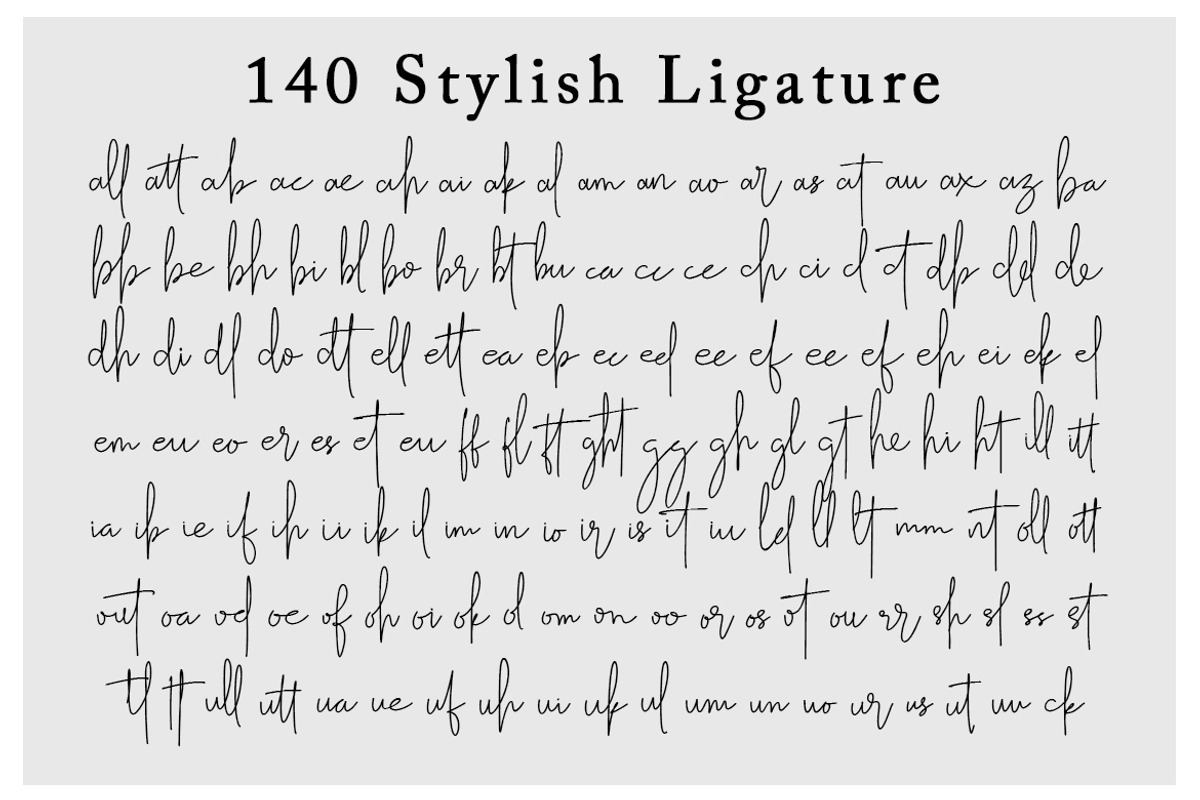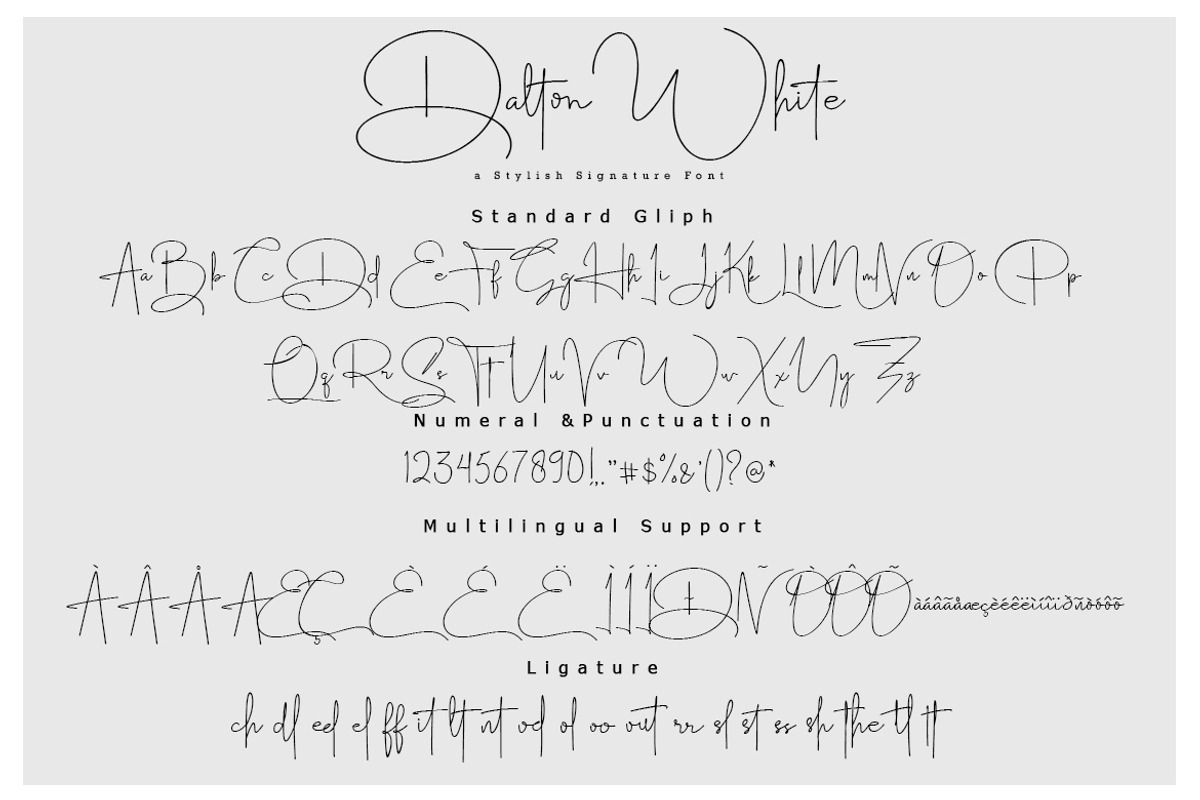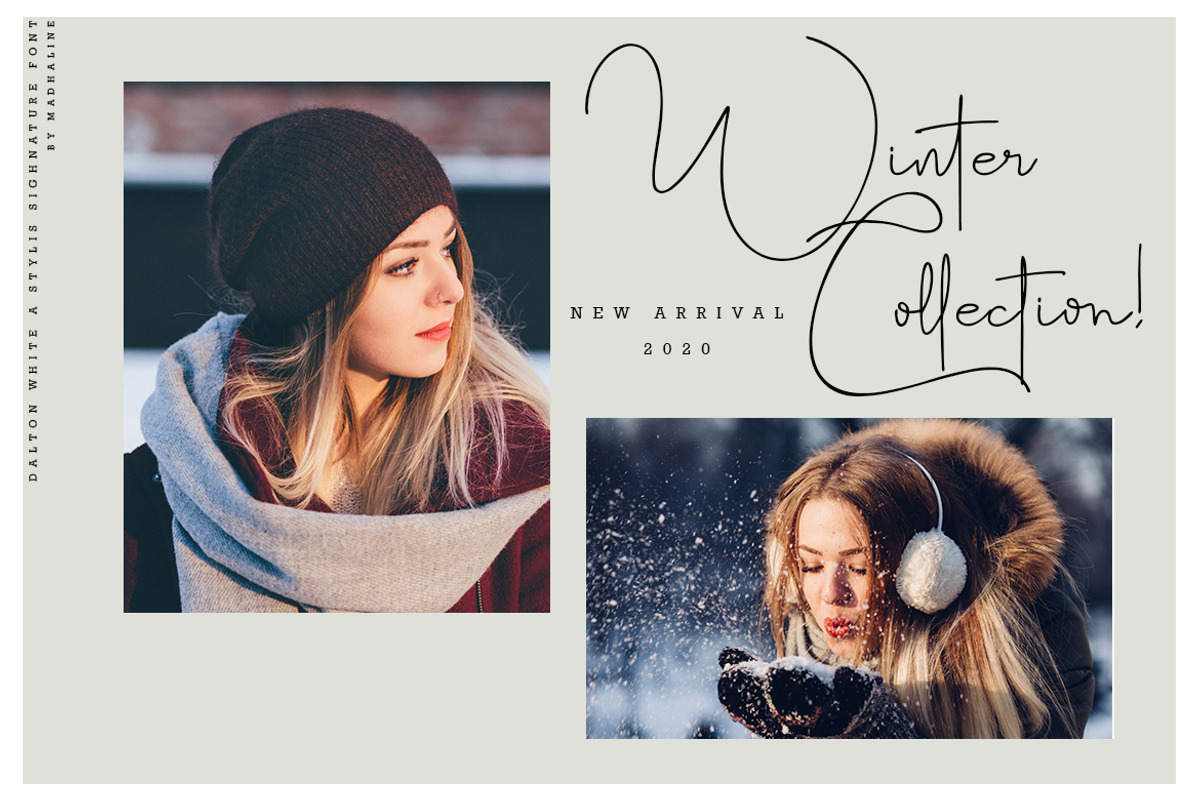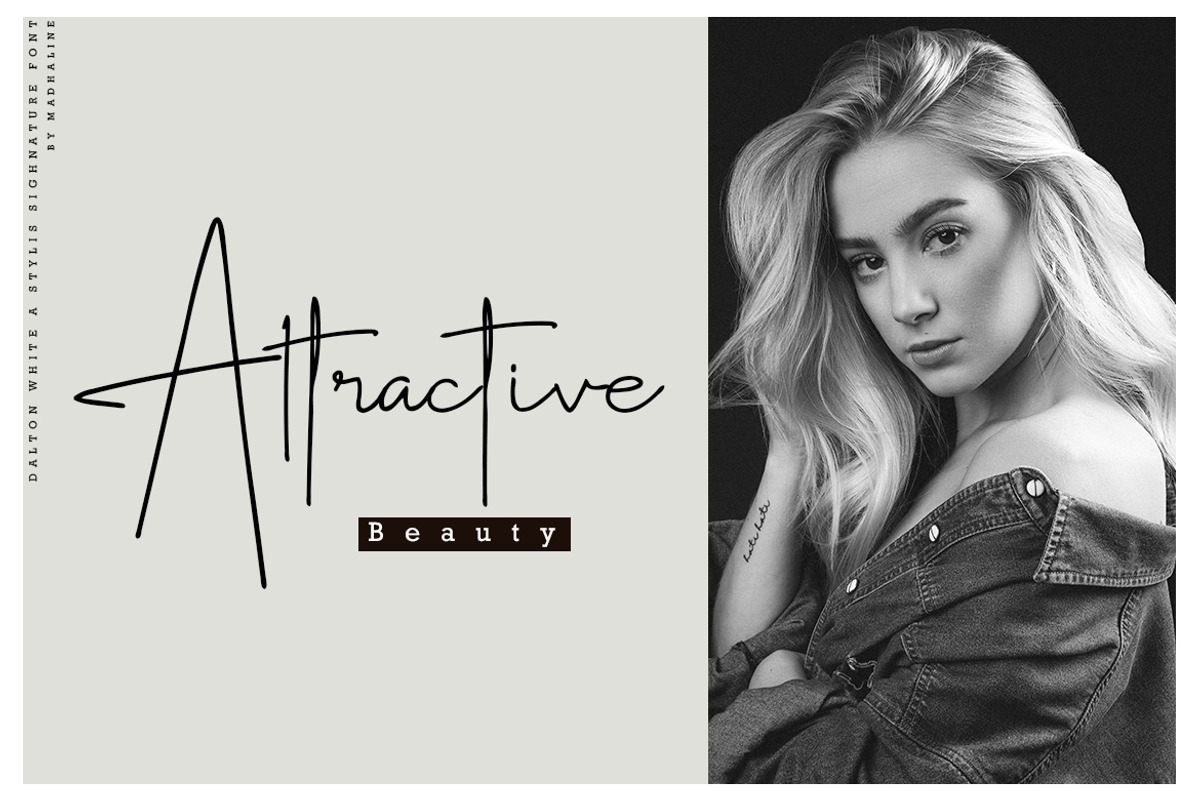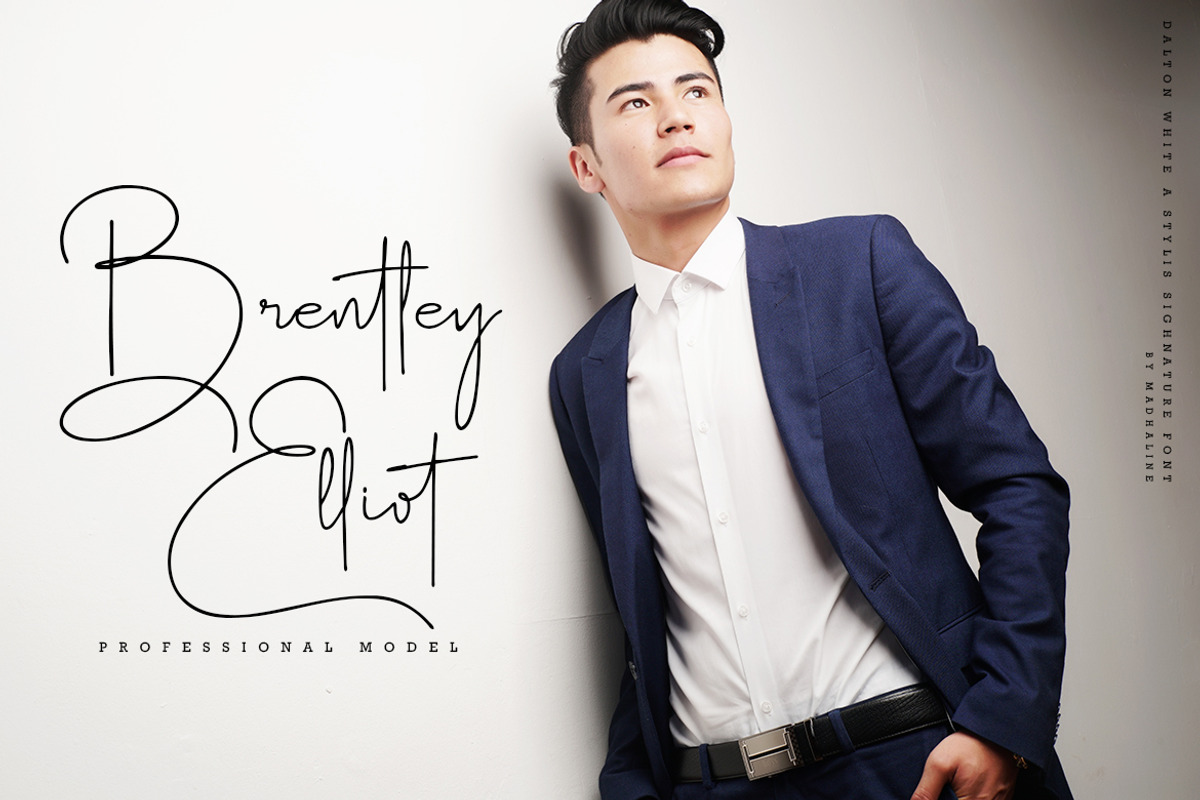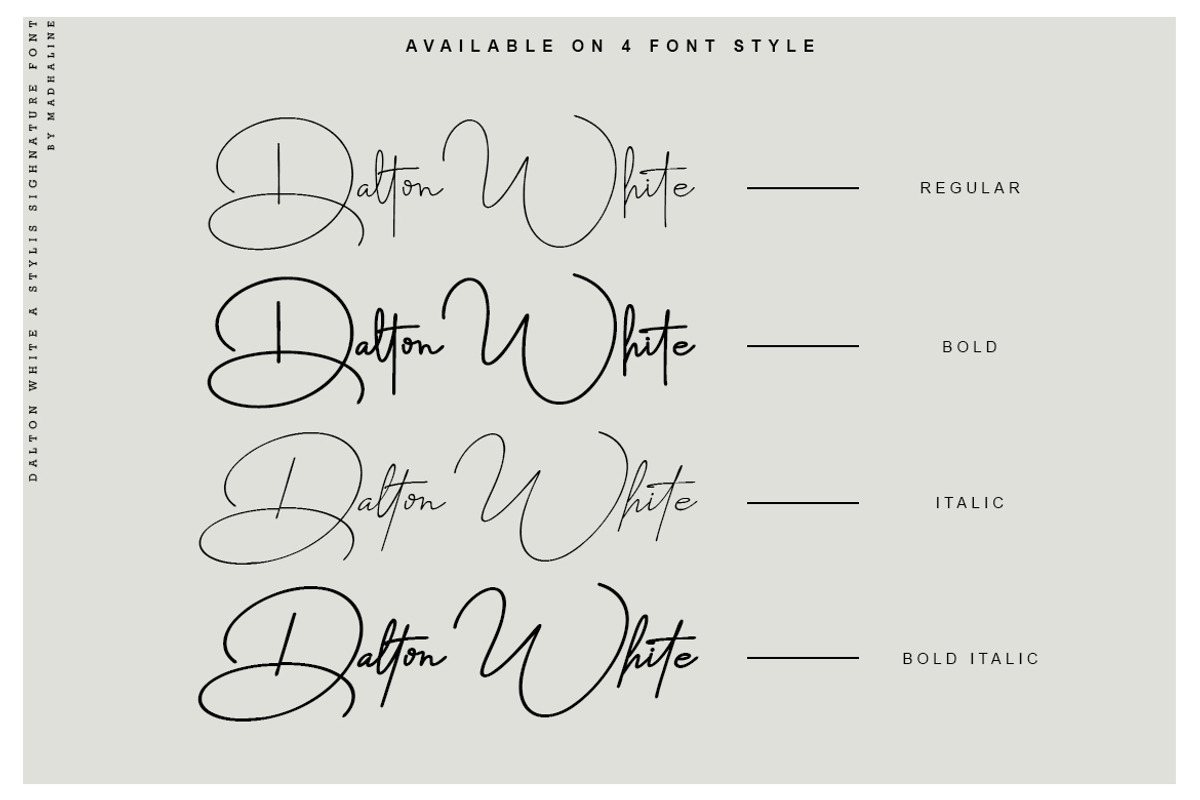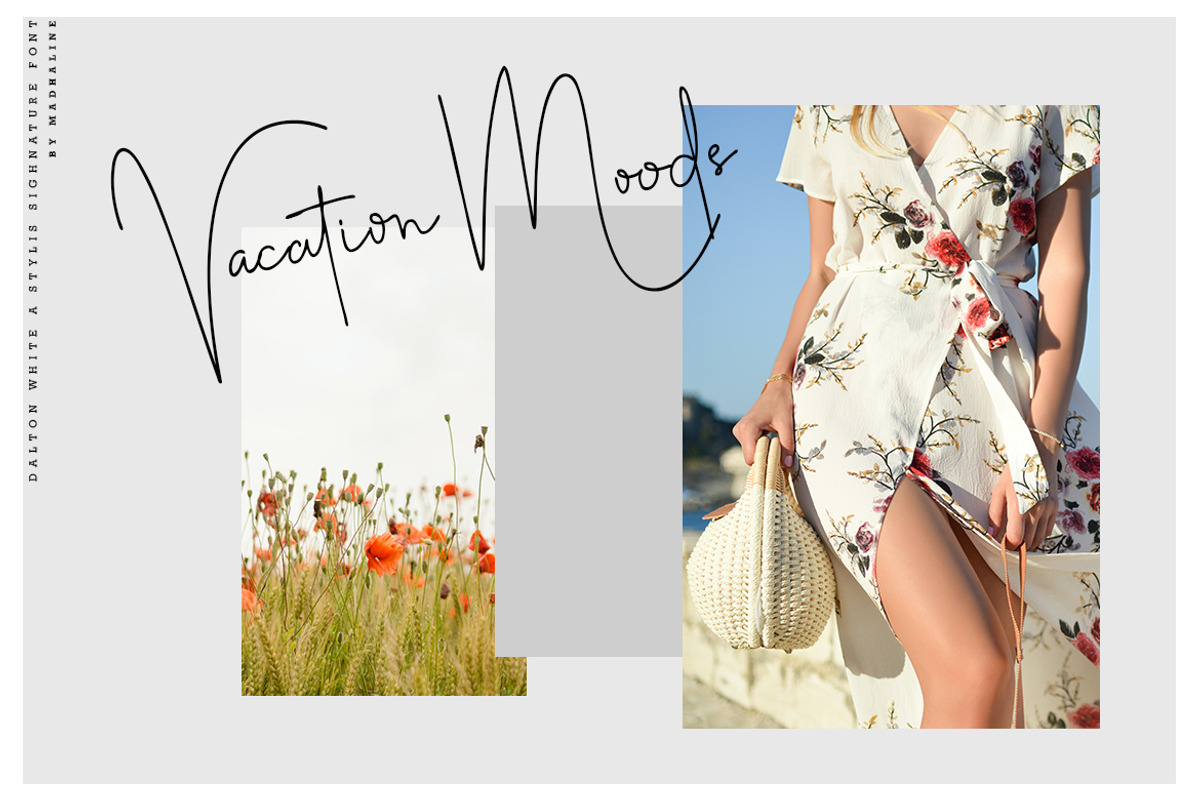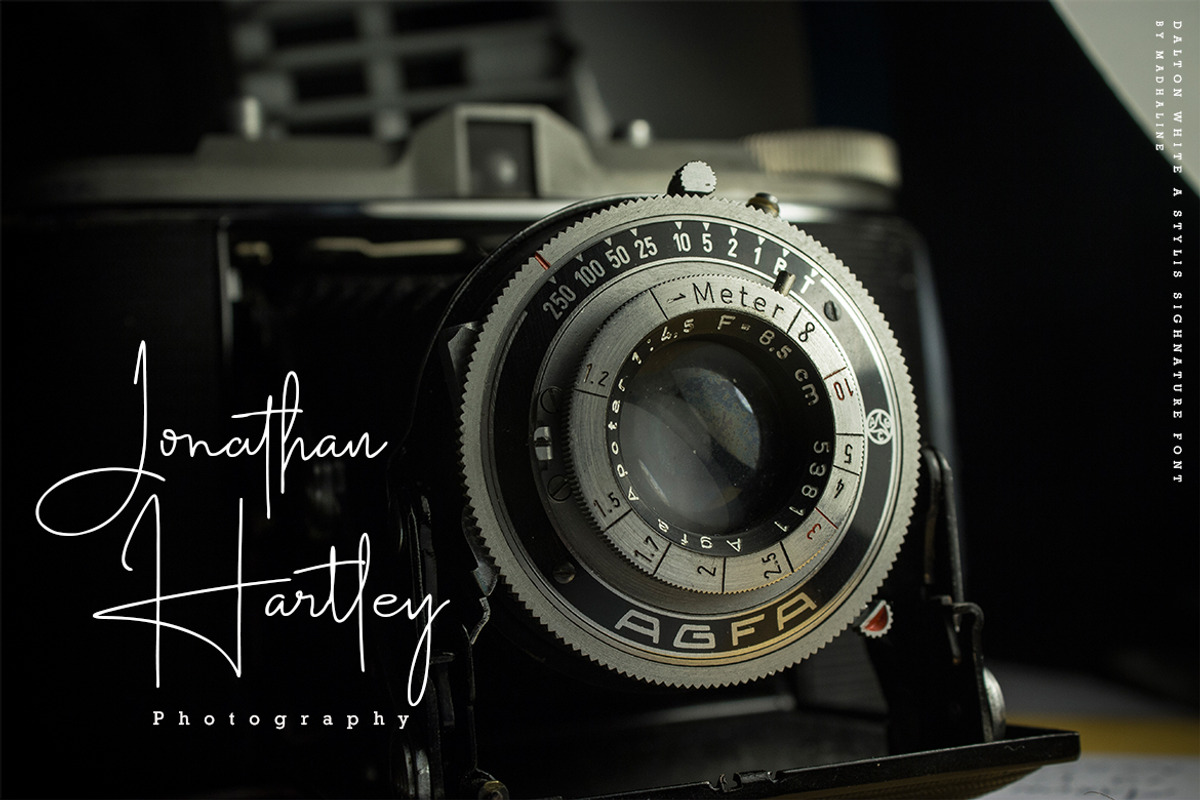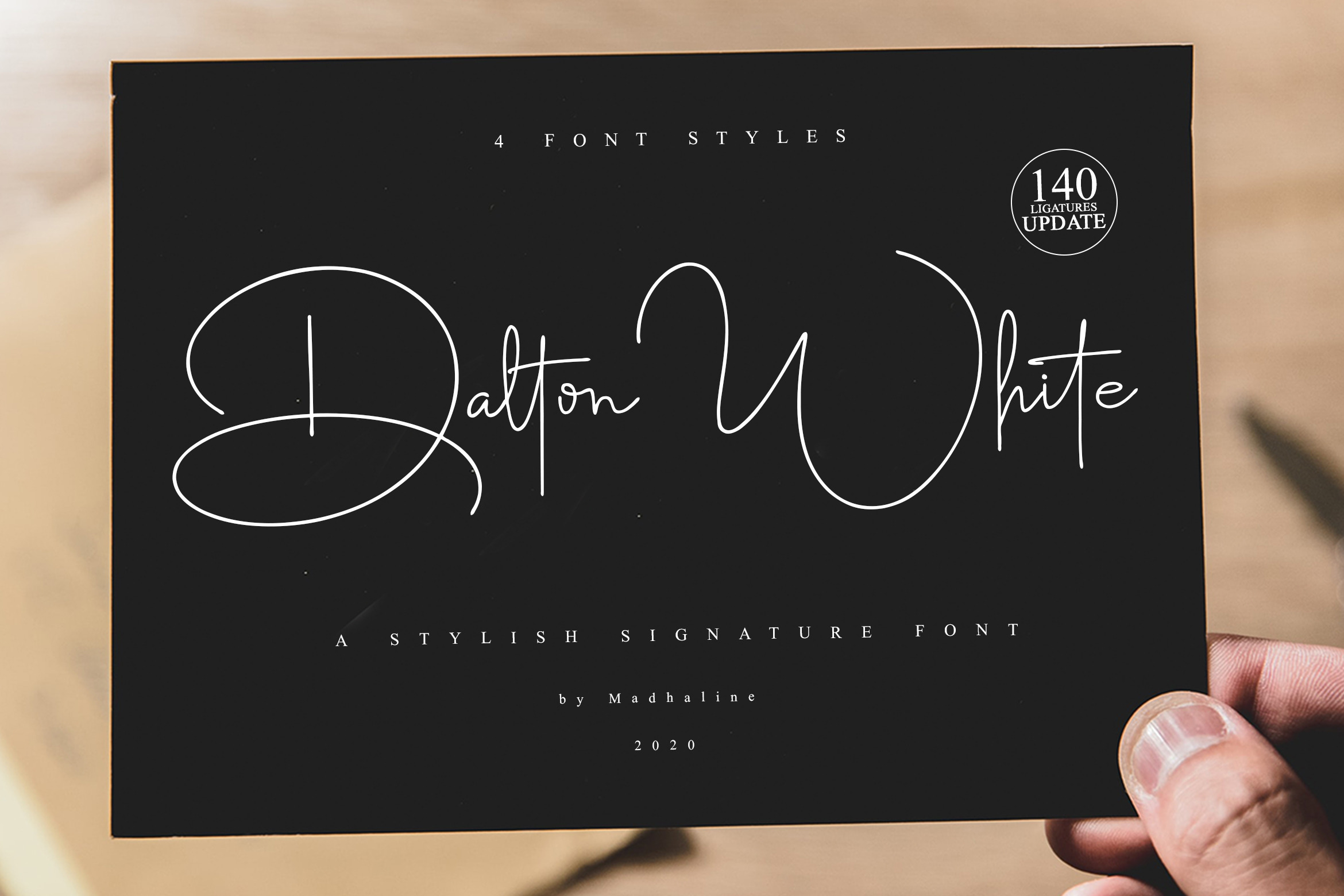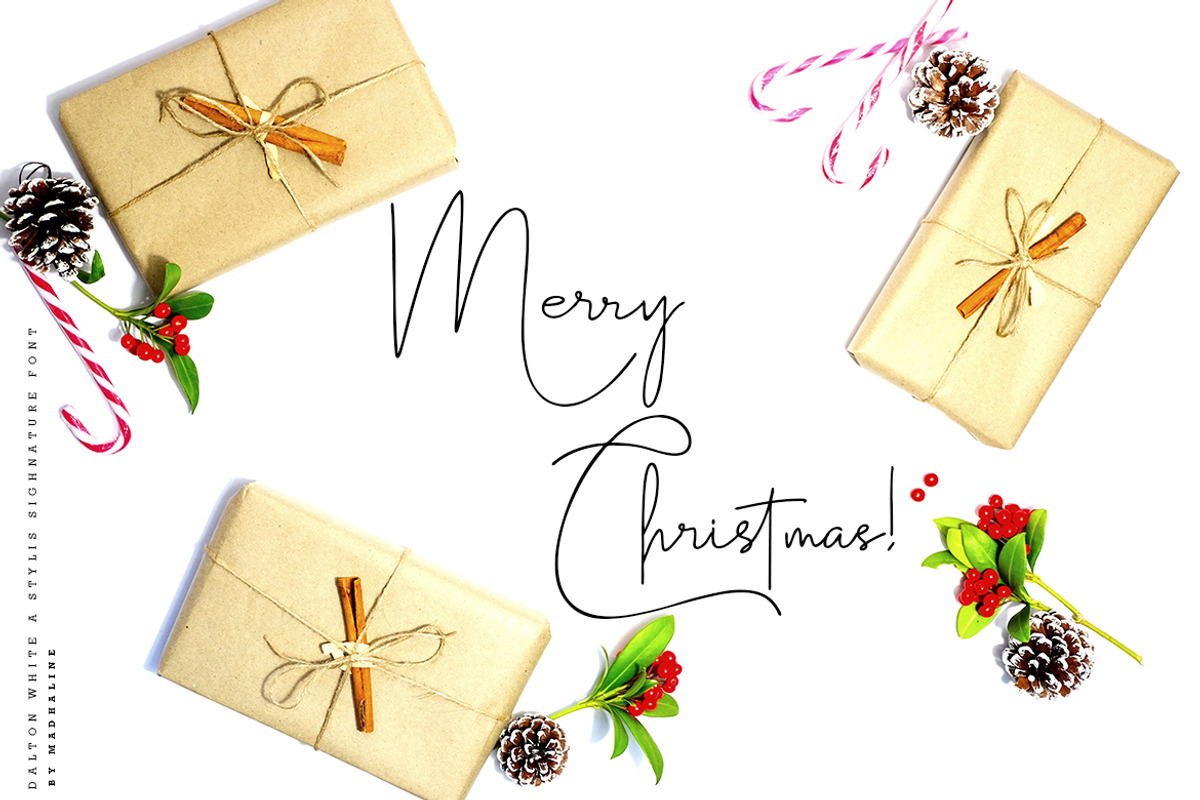
Dalton White 4 Font Style
Dalton White would perfect for photography, watermark, social media posts, advertisements, logos & branding, invitation, product designs, label, stationery, wedding designs, product packaging, special events or anything that need handwriting taste.
- Available in 4 font style
- Ton of glyphs (include Uppercase, Lowercase, Numerals & Punctuations, 140 Ligature)